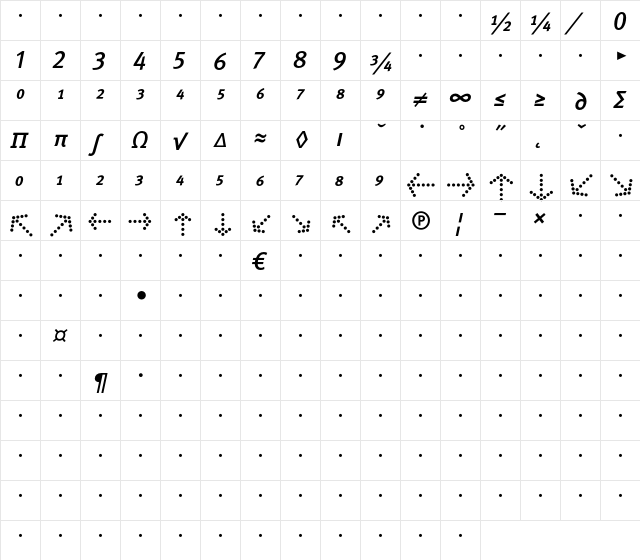
MetaMediumCyr-ItalicCapsExp Regular Font Preview
MetaMediumCyr-ItalicCapsExp Regular
MetaMediumCyr-ItalicCapsExp Regular Font Details
Design Context for MetaMediumCyr-ItalicCapsExp Typeface
MetaMediumCyr-ItalicCapsExp offers clean, dependable letterforms without strong stylistic allegiance, making it a practical choice for designers who need flexibility. Its italic angle brings a sense of urgency and motion to the letterforms.
Pro Tip: Try MetaMediumCyr-ItalicCapsExp for annotation and caption copy alongside an upright companion — the contrast in angle creates a dynamic but ordered typographic system.